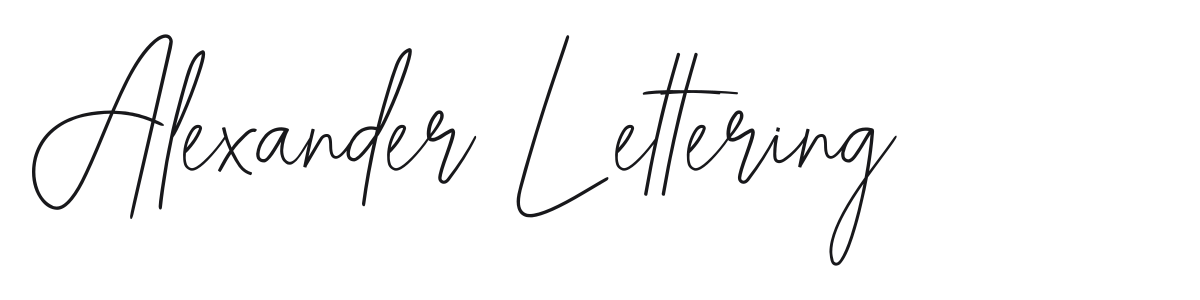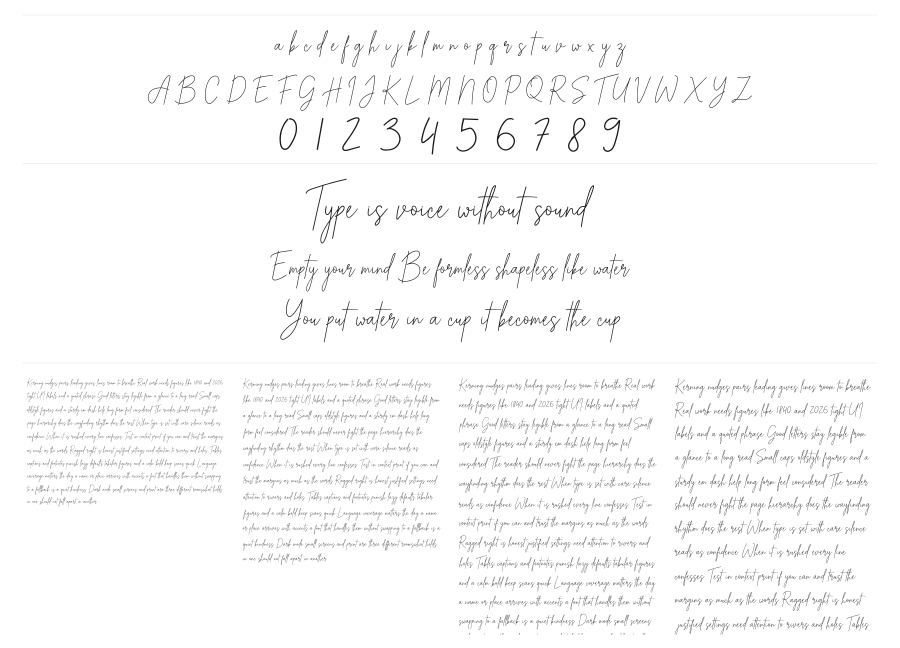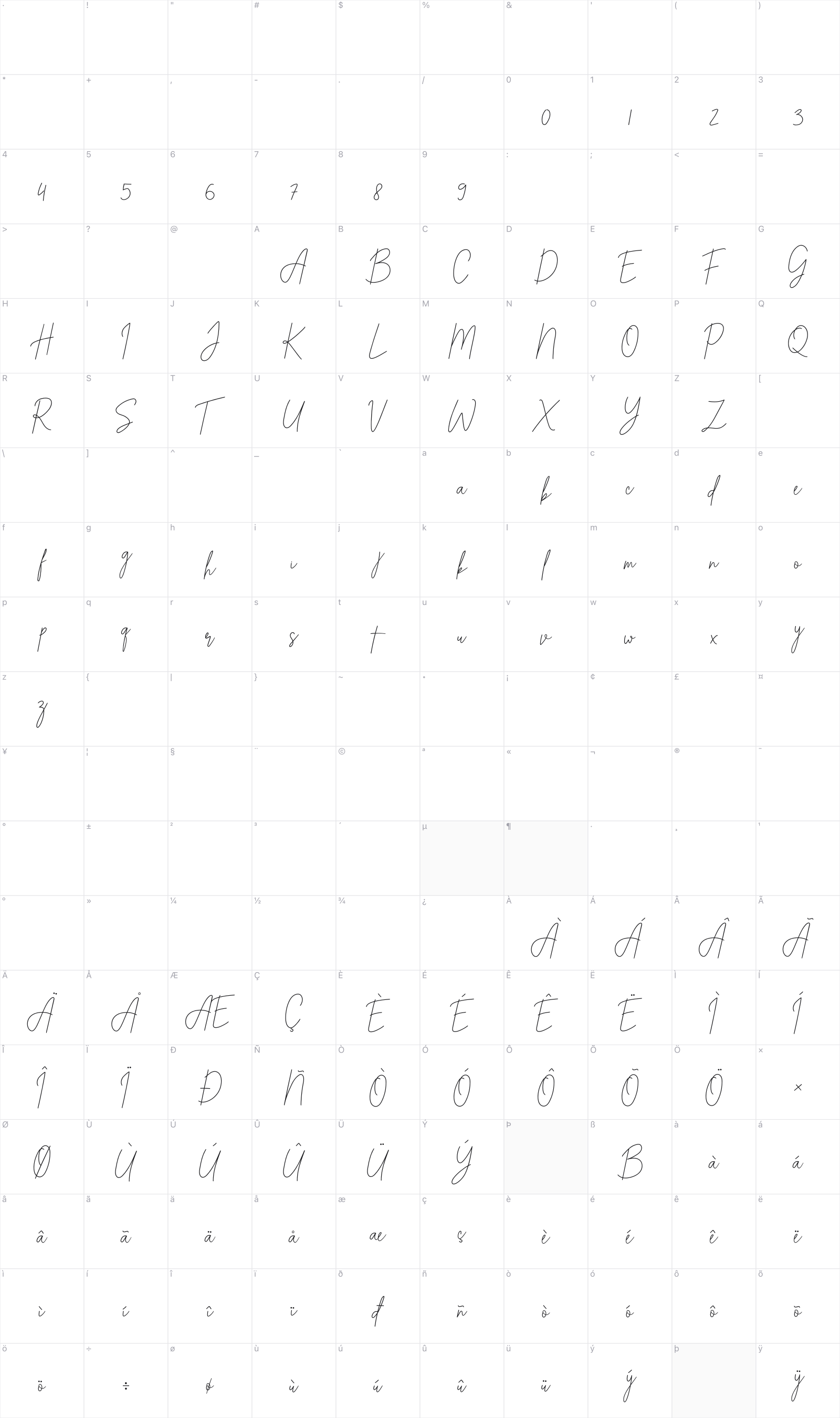
Alexander Lettering
Alexander Lettering is a thin, flowing casual script with long looping strokes and a relaxed calligraphic rhythm. Its near-monoweight hairline construction gives it an airy, light quality that reads as effortlessly elegant at large sizes. A natural choice for branding, wedding stationery, packaging, and lifestyle editorial.